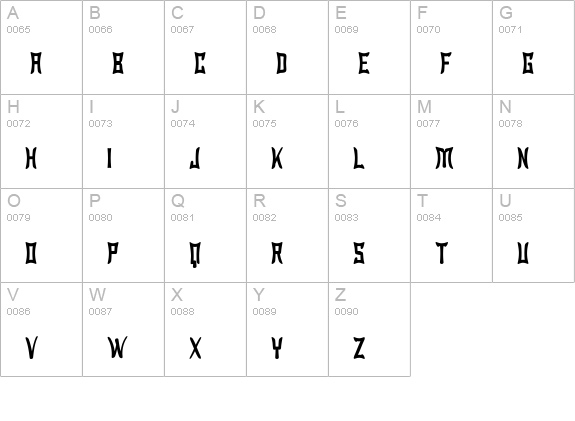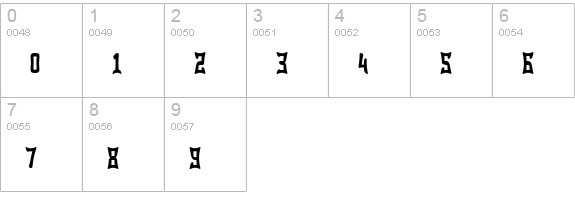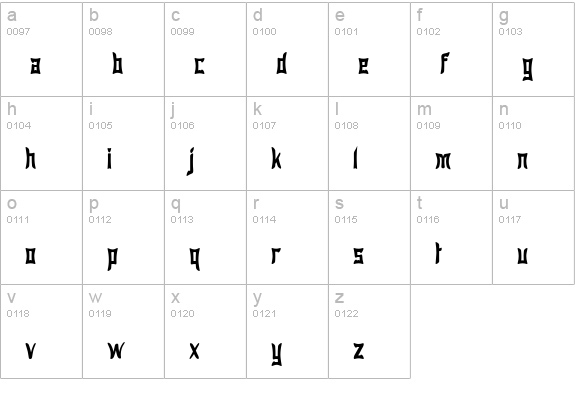
Wewak Narrow is a distinctive, condensed-width variant in the Wewak typeface family \xE2\x80\x94 well suited to design and typography projects.
Wewak Narrow font is a sleek and modern typeface that exudes elegance and sophistication. Its slim and stylish design makes it perfect for a wide range of design projects, from branding to editorial design. With its clean lines and subtle curves, Wewak Narrow font brings a touch of sophistication to any text it graces. The best part? Wewak Narrow font is available for free download at FontsMarket.com. This means you can bring a touch of class to your projects without breaking the bank. Whether you're working on a website, a brochure, or any other design project, Wewak Narrow font is sure to make a statement. Download it today and elevate your designs with this stunning typeface.